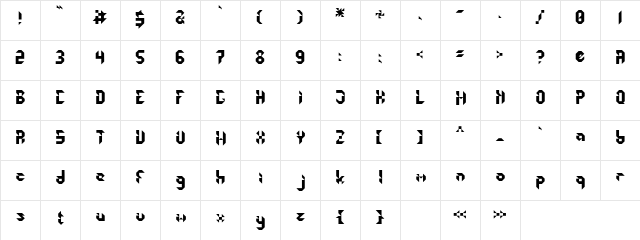
Kids Shape-Basic Regular Font Preview
Kids Shape-Basic Regular
Design Context for Kids Shape-Basic Typeface
Kids Shape-Basic has an approachable, lighthearted character — its loose, expressive forms are well-suited to children's content, casual branding, and fun-first design.
Font Pairing: Pairs well with a rounded or humanist sans for body copy, maintaining the friendly tone without relying on Kids Shape-Basic to carry extended reading.
Pro Tip: Avoid using Kids Shape-Basic for long passages of text — it works best for headlines, labels, and short calls to action.